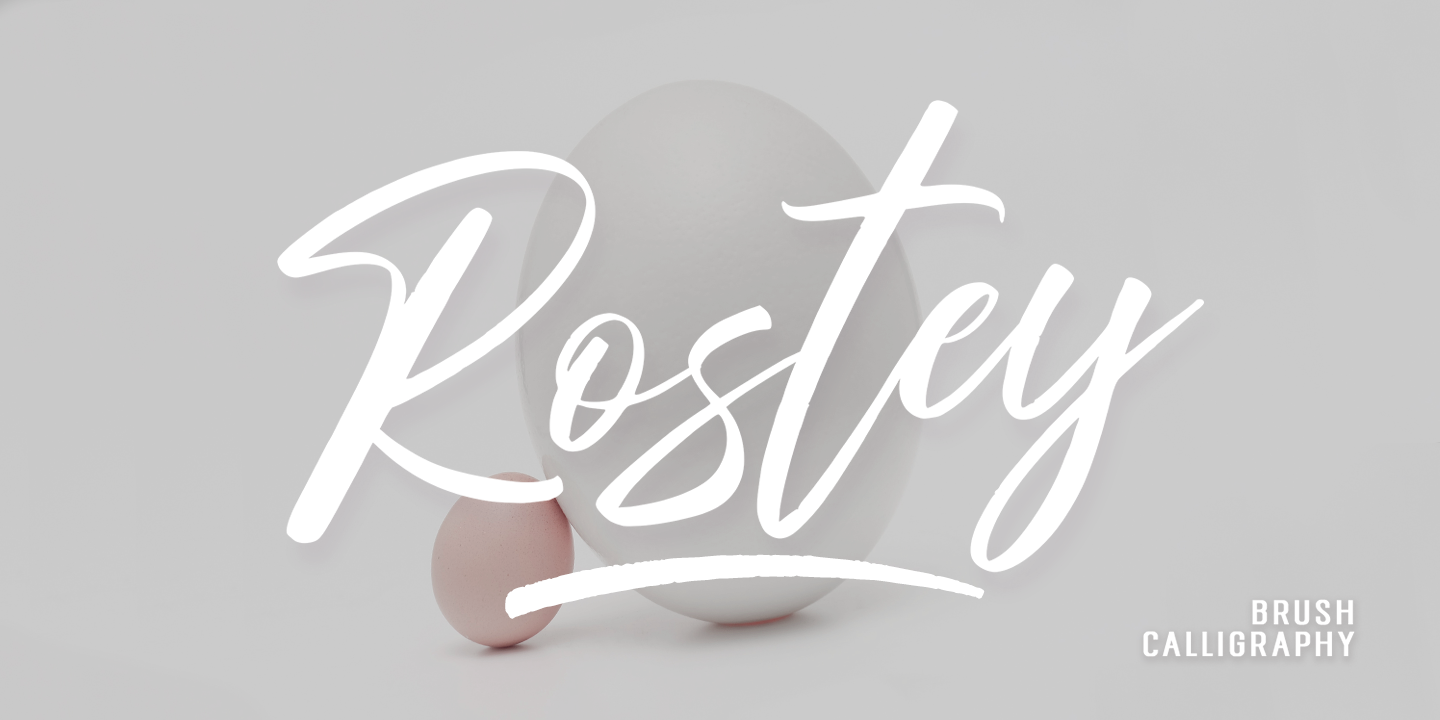
Rostey Font excels in various design applications including rustic restaurant branding, artisanal product packaging, vintage farm logos, organic food labels, craft brewery materials, handmade goods signage, countryside tourism posters, and authentic advertising campaigns. This rustic typeface adapts beautifully to both earthy digital platforms and traditional print materials, making it perfect for designers seeking rustic charm and artisanal authenticity in their visual communications.
Rostey Font generates excitement among creative professionals due to its rustic character and handcrafted styling that instantly conveys authenticity and artisanal quality. The font's weathered letterforms and organic proportions create an immediate sense of craftsmanship and rustic heritage. Its artisanal personality makes it particularly appealing for brands wanting to communicate authenticity, handmade quality, and rustic tradition in their visual identity.
The Rostey Font family includes multiple weights and styles such as Regular, Bold, Light, Distressed, and Condensed variations. Each family member maintains rustic design principles while offering distinct artisanal characteristics. The Light weight provides gentle rustic elegance for sophisticated applications, while the Distressed version delivers weathered impact for authentic headlines and traditional brand statements.
Artisanal designers frequently choose Rostey Font Free Download for projects requiring both rustic authenticity and brand distinction. This typeface demonstrates remarkable effectiveness across craft industries including organic farms, artisan breweries, handmade products, and rural tourism. Its rustic character allows organizations to communicate authenticity while maintaining excellent readability and weathered visual appeal that connects with audiences seeking genuine, handcrafted experiences.